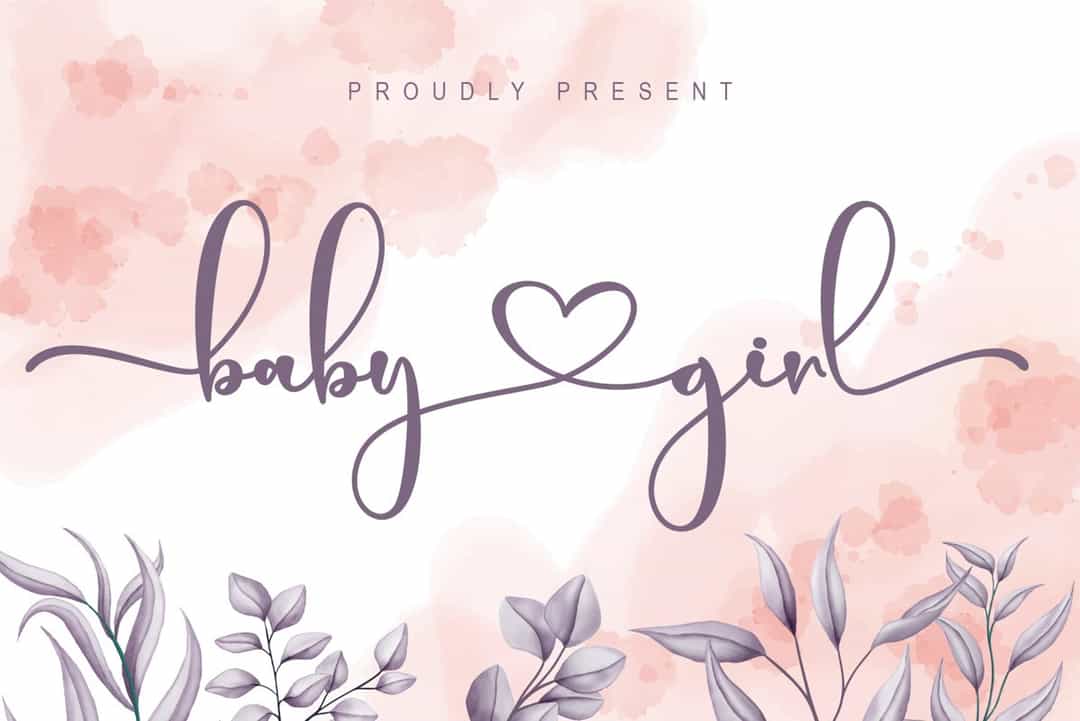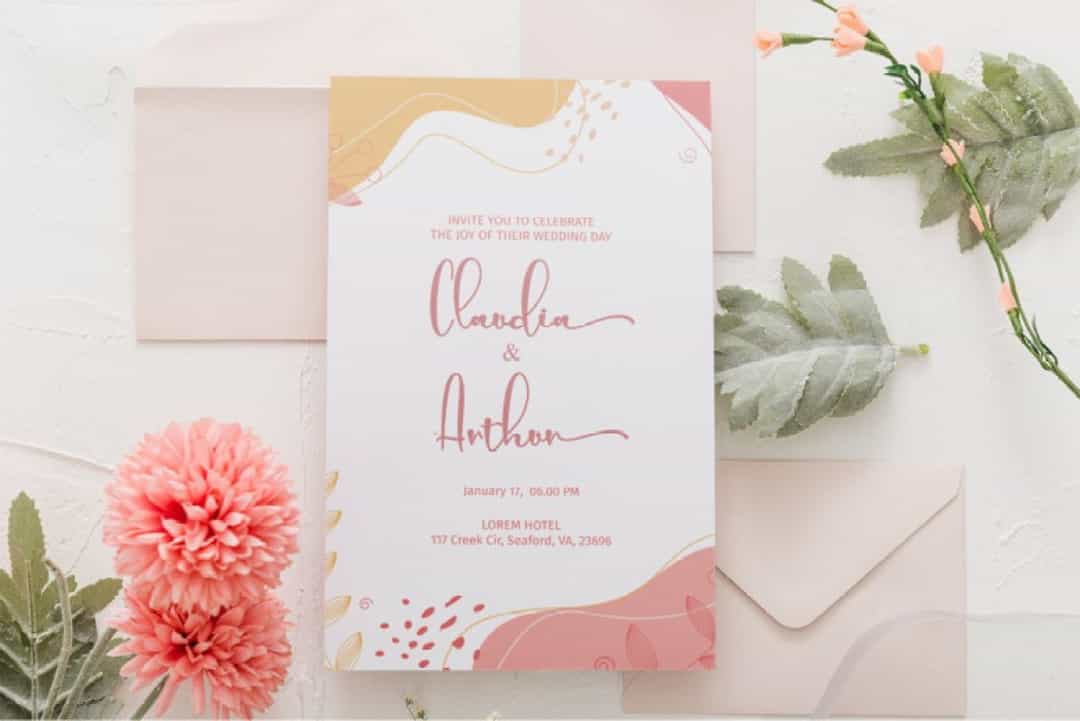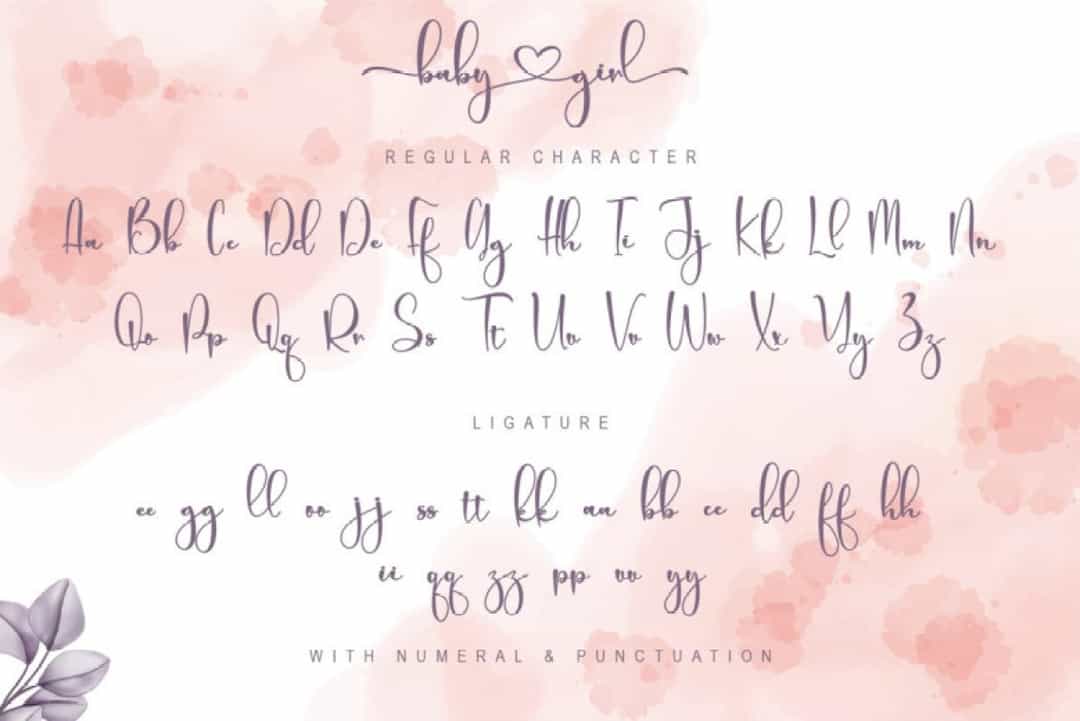
Baby Girl Calligraphy Font is an exceptionally welcoming contemporary script font with stunning swashes and ligatures that makes this font extremely adaptable – whether for Instagram posts, or calligraphy DIY projects! Clarissa can transform your imaginative ideas into stunning works of art!